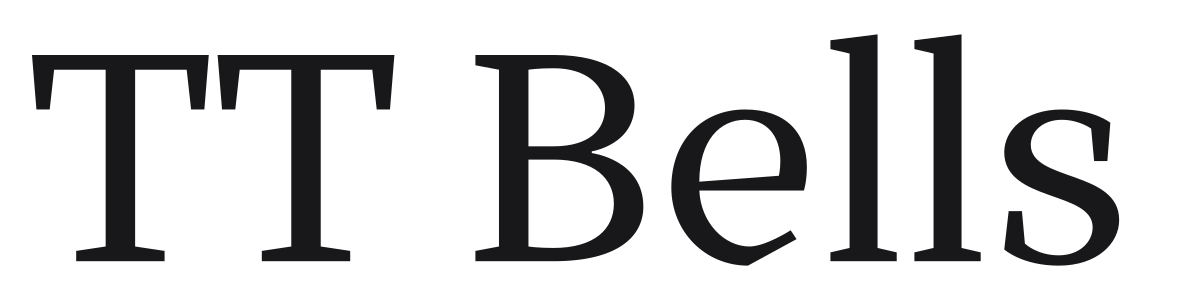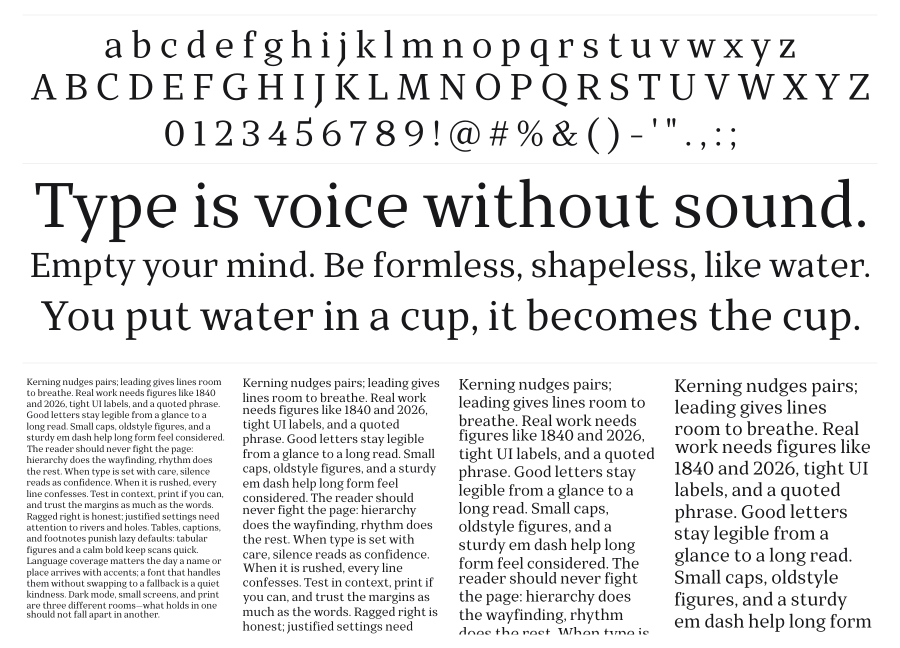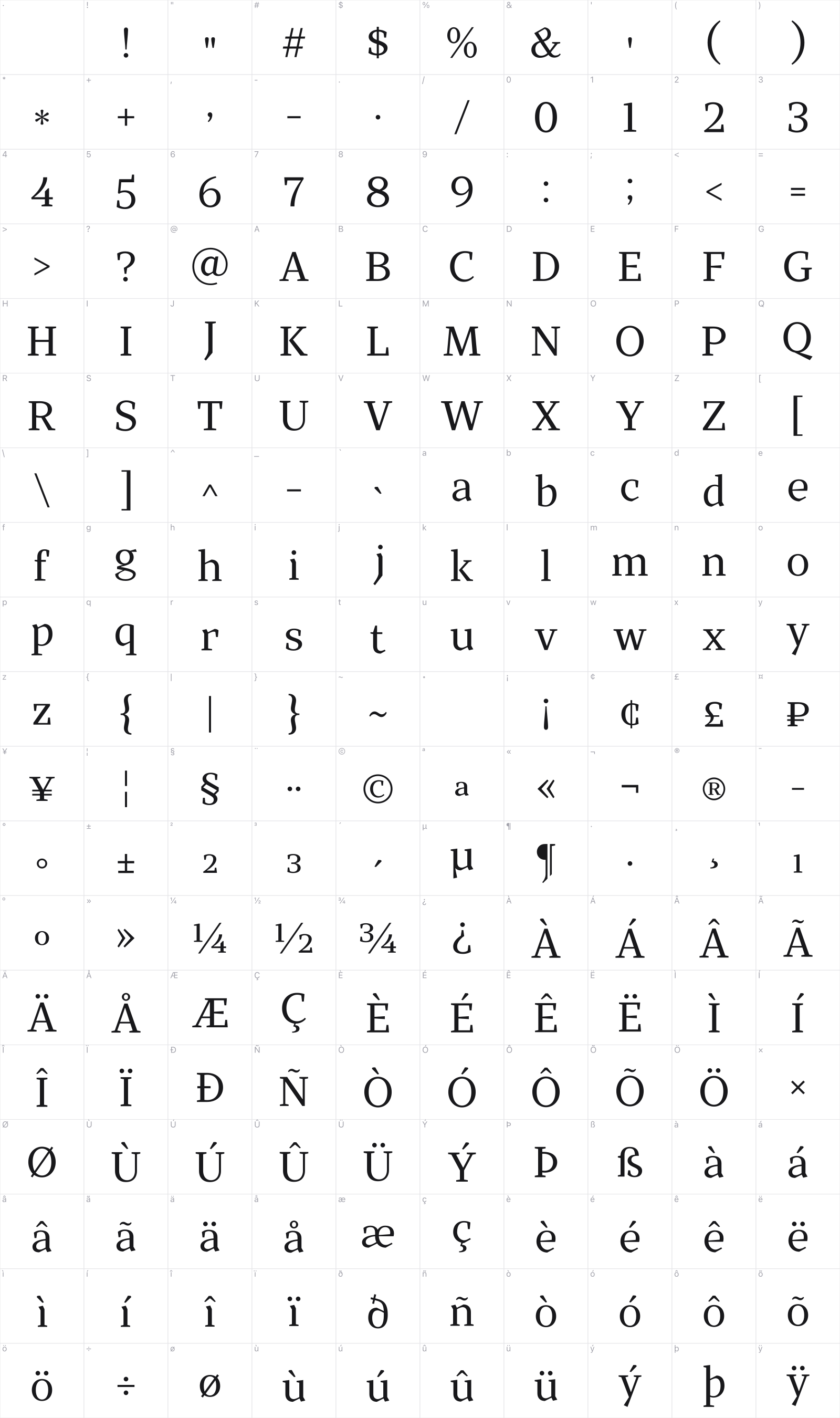
TT Bells
TT Bells is a contemporary transitional serif from TypeType, designed by Ivan Gladkikh. It carries the structural confidence of classical serifs with clean, modern proportions and controlled stroke contrast that keeps it fresh rather than historical. A solid choice for editorial work, book typography, and brand identities that want substance without nostalgia.